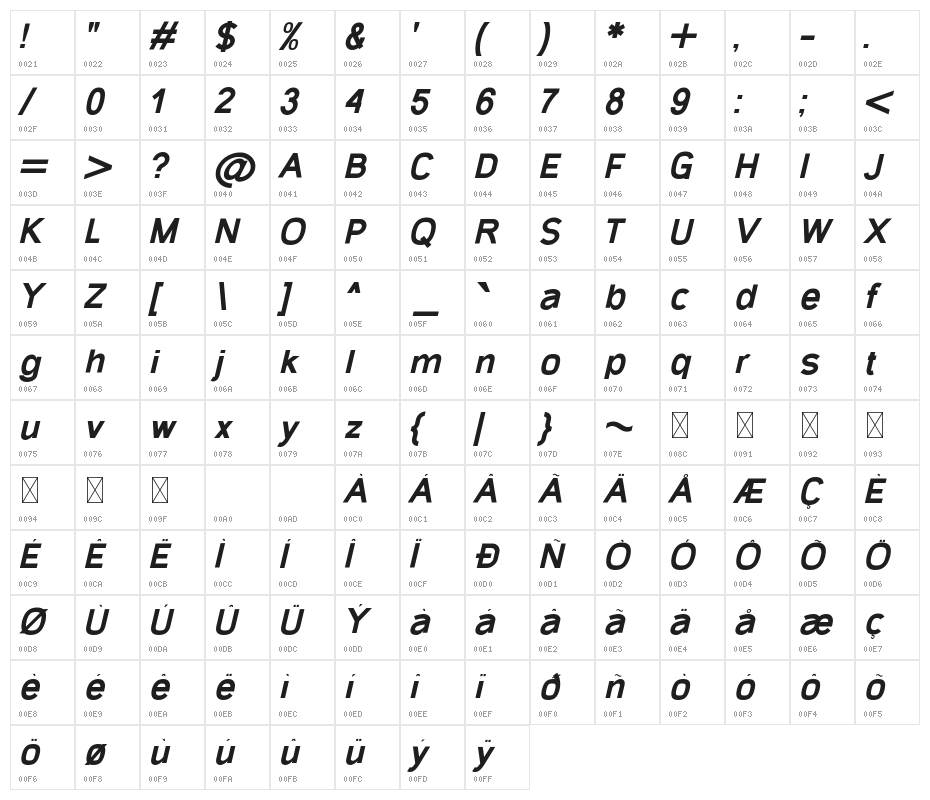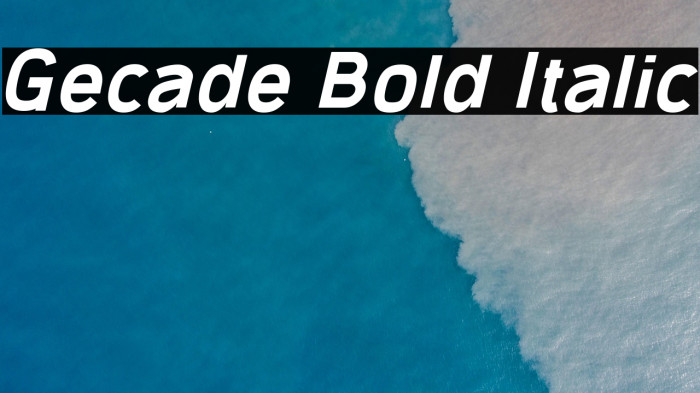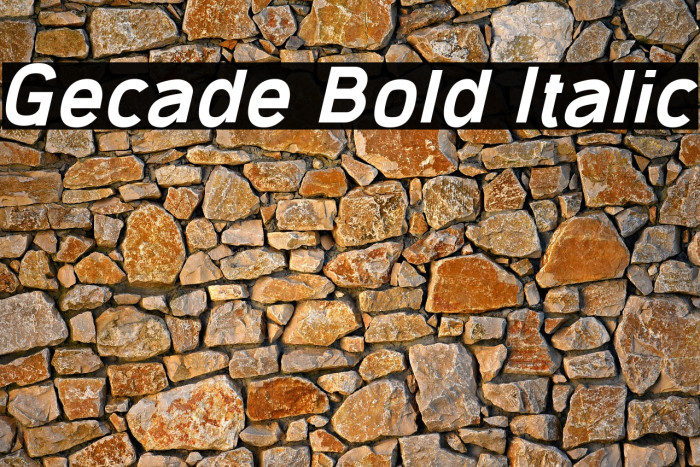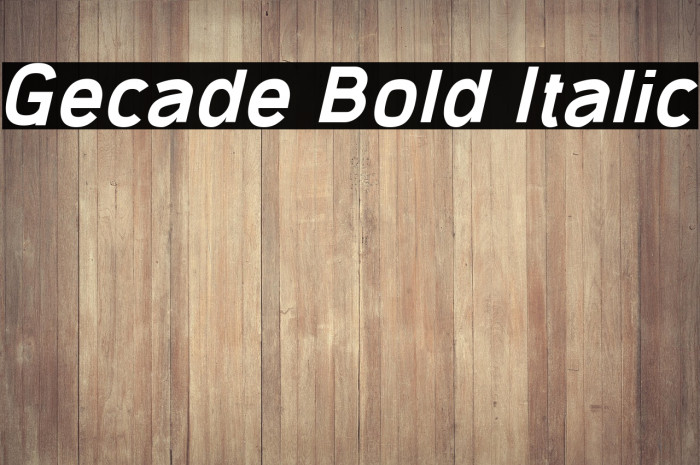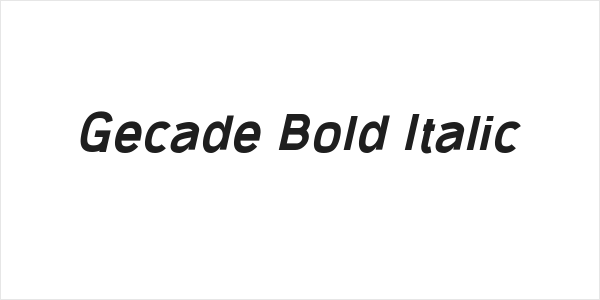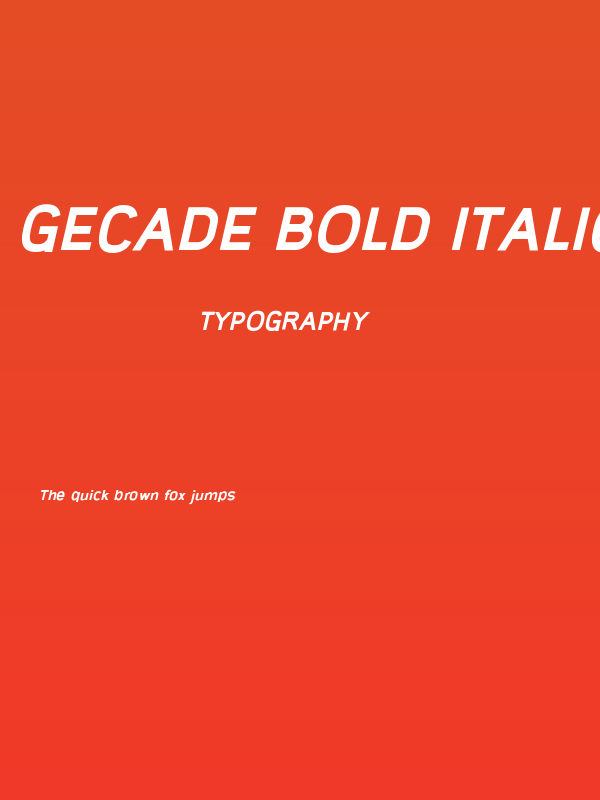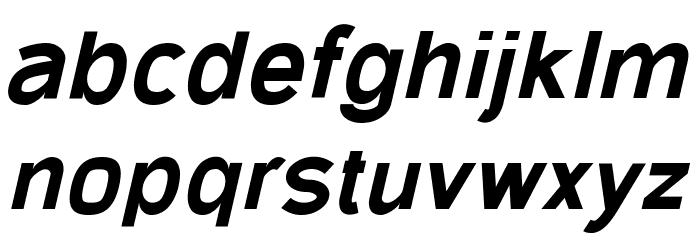
Gecade Bold Italic Font
Gecade Bold Italic Description
This font features a bold and italicized style, offering a dynamic and modern appearance. The characters are slightly slanted, enhancing the italic effect, while maintaining a strong and confident presence due to the bold weight. The uppercase and lowercase letters are well-proportioned, providing a sense of balance and readability. The numerals are clear and distinct, making them suitable for various applications. Special characters are included, adding versatility to the font's use. Overall, this font combines strength and elegance, making it ideal for impactful designs.
| Use Case | Headlines, Logos, Advertising |
| Proposed Projects | Ideal for branding, advertising, headlines, and digital media where a strong and modern impression is needed. |